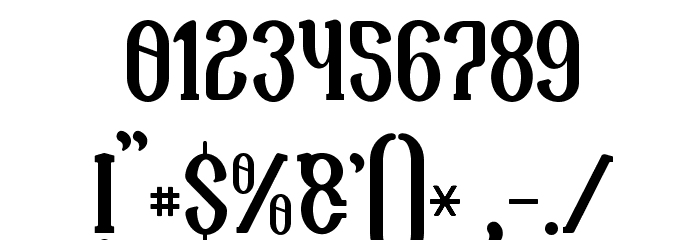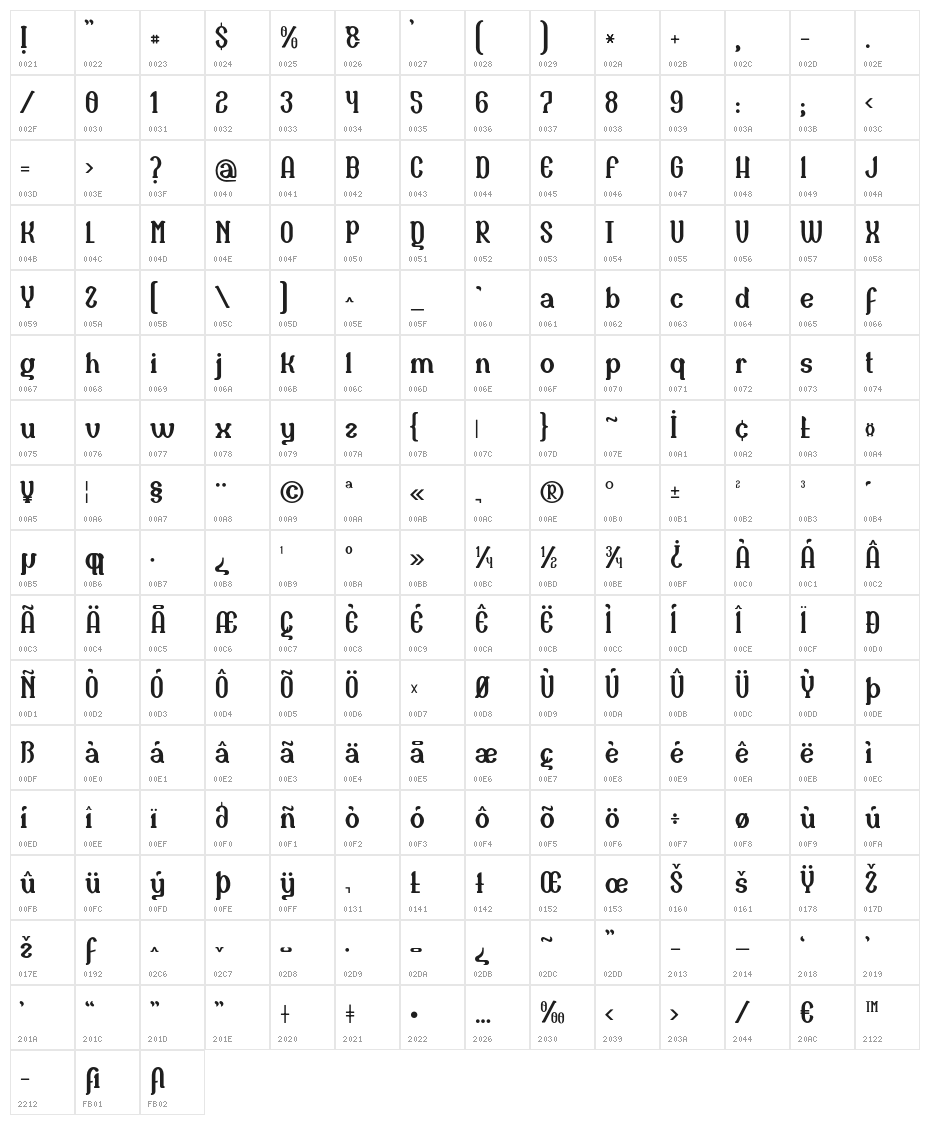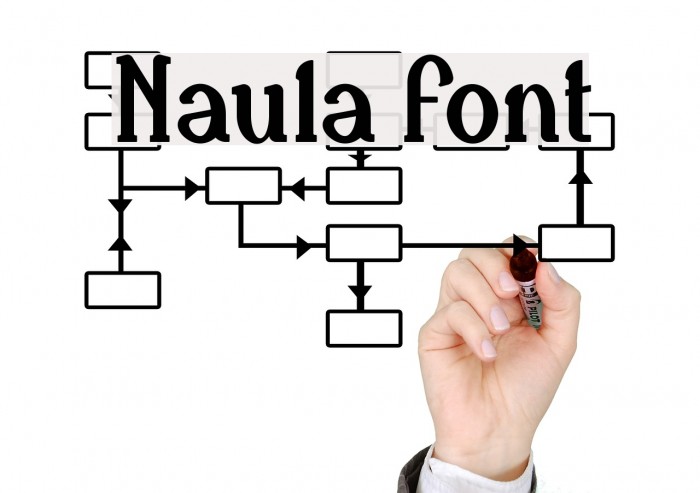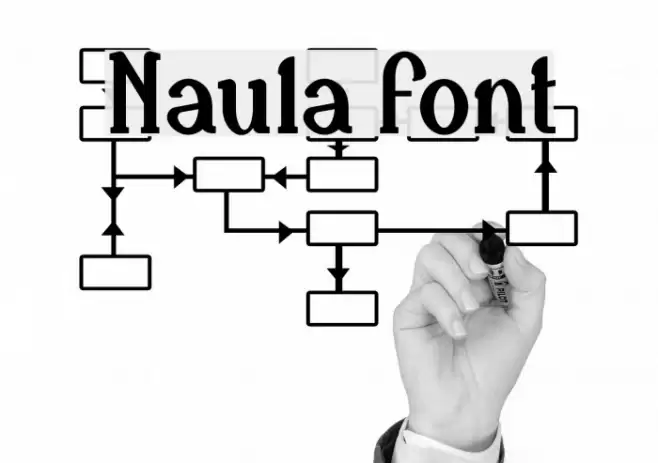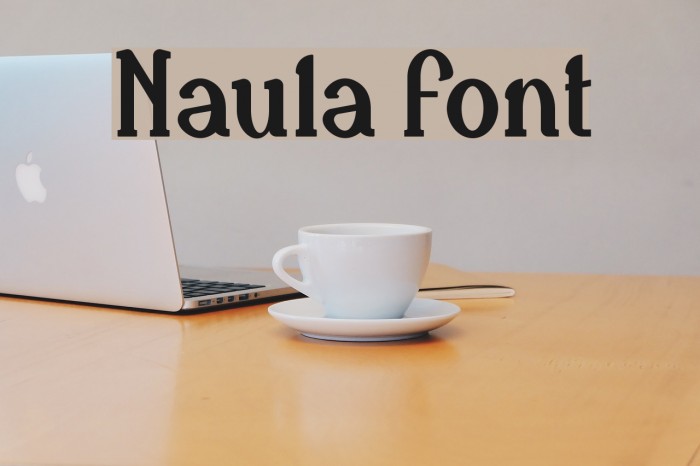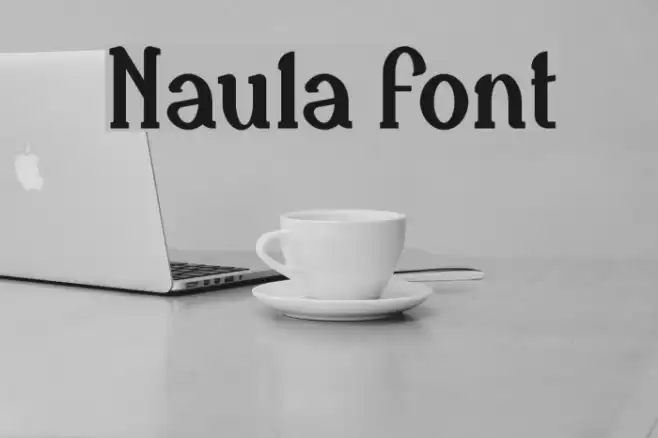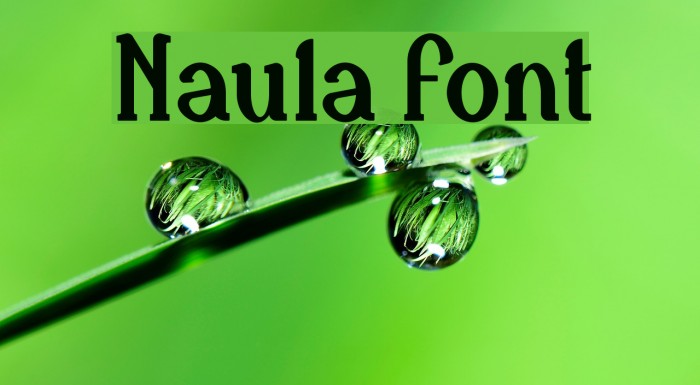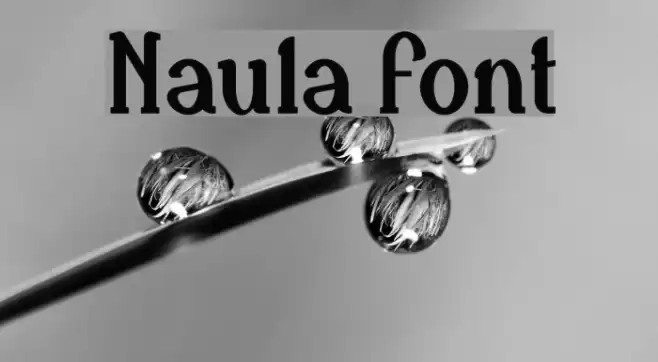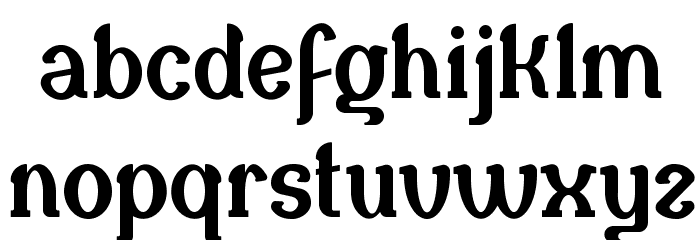
Naula Font
Naula Description
This font features a bold and decorative style with distinct, curvy serifs that give it a unique and playful appearance. The uppercase letters are particularly striking, with exaggerated curves and a strong presence. The lowercase letters maintain the decorative theme with consistent stroke widths and playful loops. Numbers are bold and easily readable, while special characters are designed to match the overall aesthetic. The font's style is reminiscent of vintage or retro designs, making it suitable for projects that require a touch of nostalgia or whimsy.